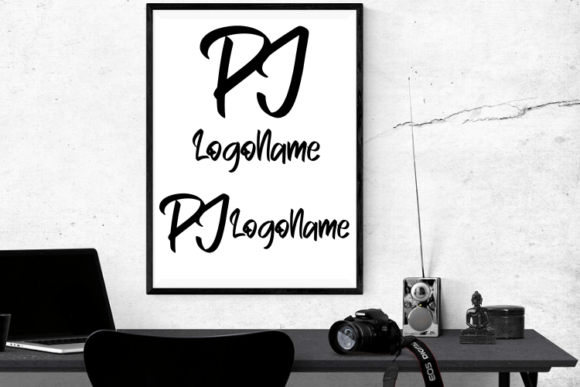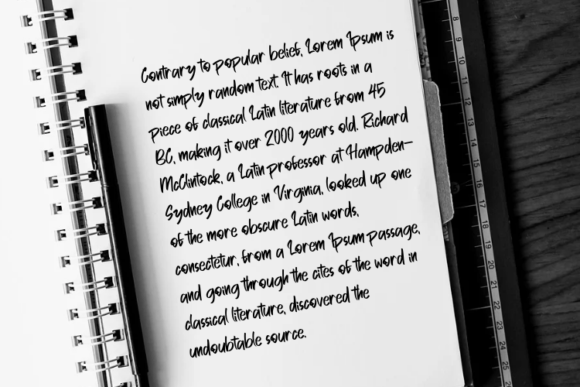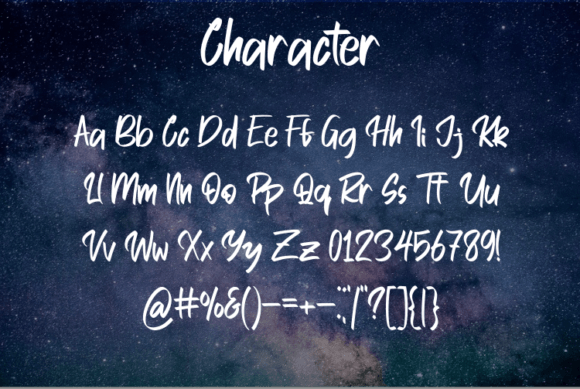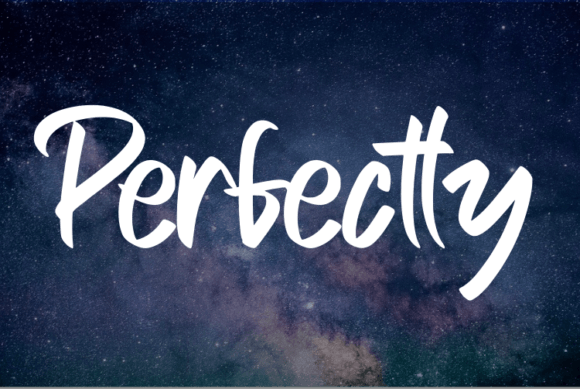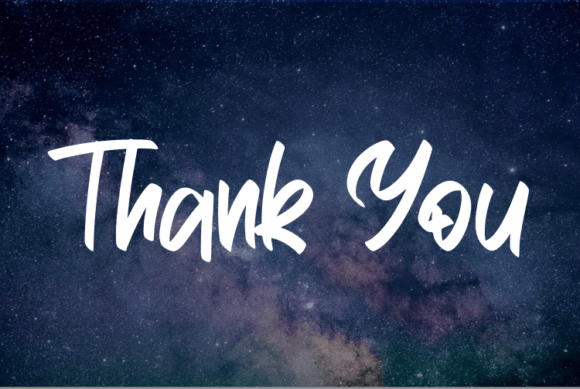
Introducing Battle Universe Font: Elevate Your Designs with Elegance and Luxury
In the world of typography, a font can make or break a design. For designers and crafters seeking to add a touch of sophistication and modernity to their work, the Battle Universe Font is an exceptional choice. This script typeface boasts a simple yet stylish aesthetic, perfect for creating elegant and luxurious designs that stand out.
What is Battle Universe Font?
Battle Universe is a script typeface that exudes a sense of refinement and poise. Its simple style and modern look make it an ideal choice for a wide range of design applications. Whether you’re working on a logo, book or movie title, fashion brand, magazine, clothing, or quote, this font is sure to impress.
Key Features of Battle Universe Font
- Simple yet stylish: The Battle Universe Font features a clean and minimalist design that conveys a sense of sophistication and elegance.
- Modern look: This font’s modern aesthetic ensures that your designs look fresh and contemporary.
- Script typeface: The script style of Battle Universe adds a touch of luxury and refinement to any design.
- Versatile: This font is perfect for a wide range of design applications, from logos and titles to magazines and quotes.
Use Cases for Battle Universe Font
The Battle Universe Font is an incredibly versatile typeface that can be used in various design projects. Here are some examples:
- Elegant logos: Create a lasting impression with a sophisticated logo that showcases your brand’s personality.
- Book and movie titles: Add a touch of luxury to your book or movie titles with this stunning script font.
- Fashion brands: Elevate your fashion brand’s visual identity with a modern and stylish font.
- Magazines and editorials: Use Battle Universe to add a touch of sophistication to your magazine or editorial designs.
- Clothing and apparel: Create eye-catching clothing and apparel designs with this versatile font.
- Quotes and posters: Make a statement with elegant and stylish quotes and posters.
Why Choose Battle Universe Font?
With so many fonts available, why choose Battle Universe? Here are a few compelling reasons:
- Unique style: Battle Universe offers a distinctive style that sets it apart from other fonts.
- Ease of use: This font is easy to read and works well in various design applications.
- High-quality design: The Battle Universe Font is designed with precision and attention to detail, ensuring a high-quality finish.
Tips for Using Battle Universe Font
To get the most out of Battle Universe Font, here are some tips:
- Pair with complementary fonts: Combine Battle Universe with complementary fonts to create a visually appealing design.
- Experiment with colors: Try out different color schemes to find the perfect match for your design.
- Pay attention to spacing: Ensure that your design has sufficient spacing to make the most of this elegant font.
In conclusion, the Battle Universe Font is an exceptional choice for designers and crafters seeking to add a touch of elegance and luxury to their work. With its simple yet stylish design, modern look, and versatility, this script typeface is perfect for a wide range of design applications. Whether you’re working on a logo, book or movie title, fashion brand, or quote, Battle Universe Font is sure to elevate your designs to the next level.